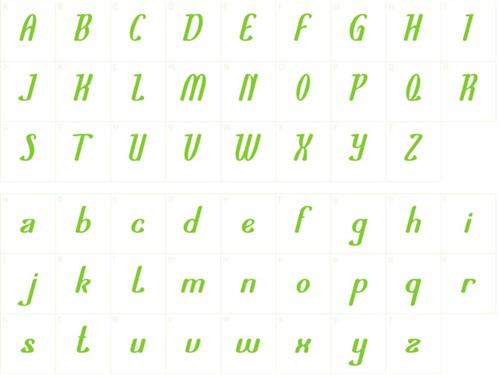
Aruba Breeze Embroidery Font - Flowing Script Lettering - PES, DST & 8 formats by Unicorn Creatives and other embroidery fonts available at EmbroideryDesigns.com.
Unicorn Creatives is happy to present Aruba Breeze Embroidery Font - Flowing Script Lettering - PES, DST & 8 formats machine embroidery font which has This flowing script machine embroidery font features cursive letters in a blend of green and navy blue, perfect for refreshing kitchen towels. Available in PES, DST, and 8 other formats. included. If you would like to view more embroidery fonts and alphabets please search our embroidery fonts page.